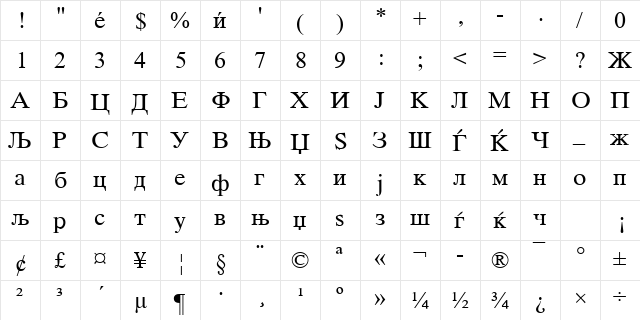
Macedonian Tms Regular
Design Context for Macedonian Tms Typeface
Macedonian Tms takes a measured approach to typography — its balanced proportions and neutral character make it a reliable workhorse for both digital and print work.
Pro Tip: Use Macedonian Tms in both headline and body roles to test its range before committing to a single application.